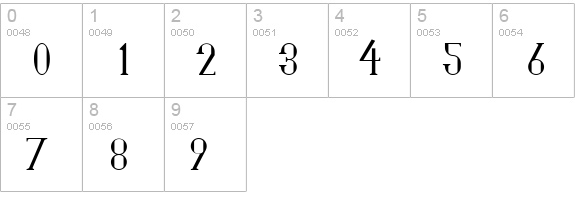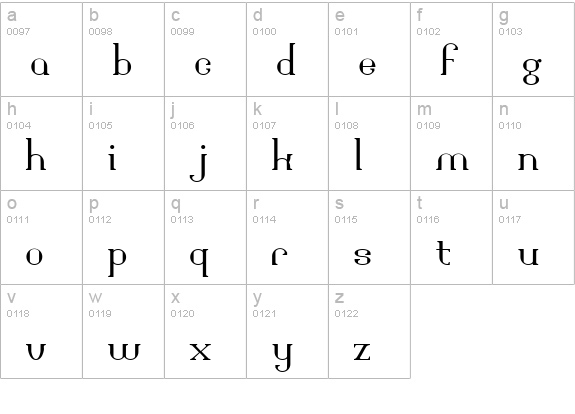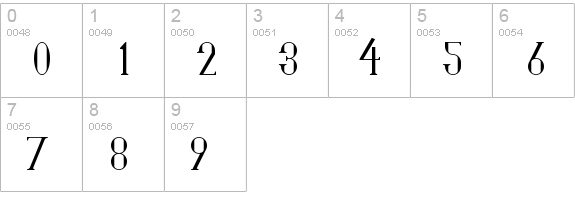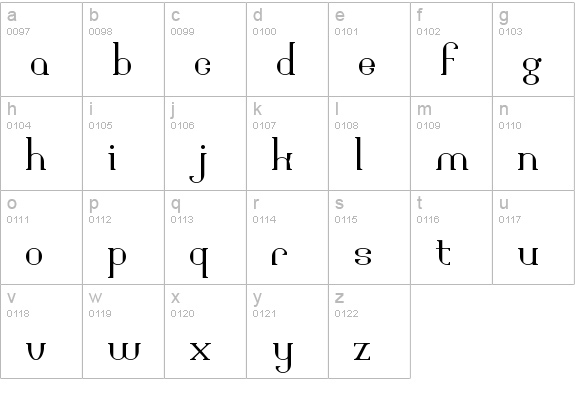
BridgeworkA Font Details
BridgeworkA is a modern and stylish font that exudes sophistication and elegance. With its sleek lines and contemporary design, BridgeworkA is the perfect choice for adding a touch of class to your projects. This versatile font is ideal for a wide range of applications, from branding and logos to invitations and social media graphics. What's even better is that BridgeworkA is completely free to download at FontsMarket.com. Whether you're a designer looking to enhance your portfolio or a creative individual seeking to elevate your personal projects, BridgeworkA is the ideal font for you. Don't miss out on this amazing opportunity to access a high-quality font at no cost - download BridgeworkA today and take your designs to the next level!